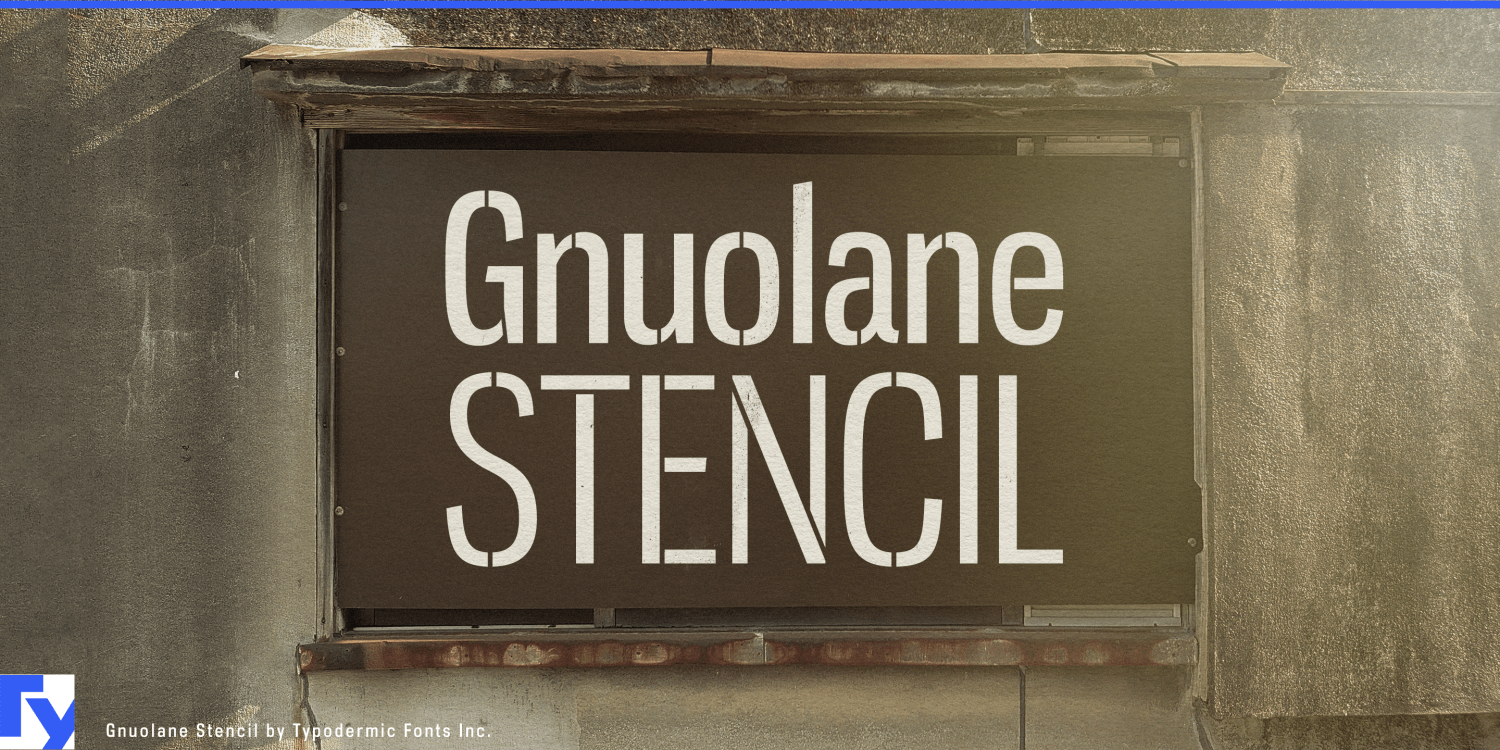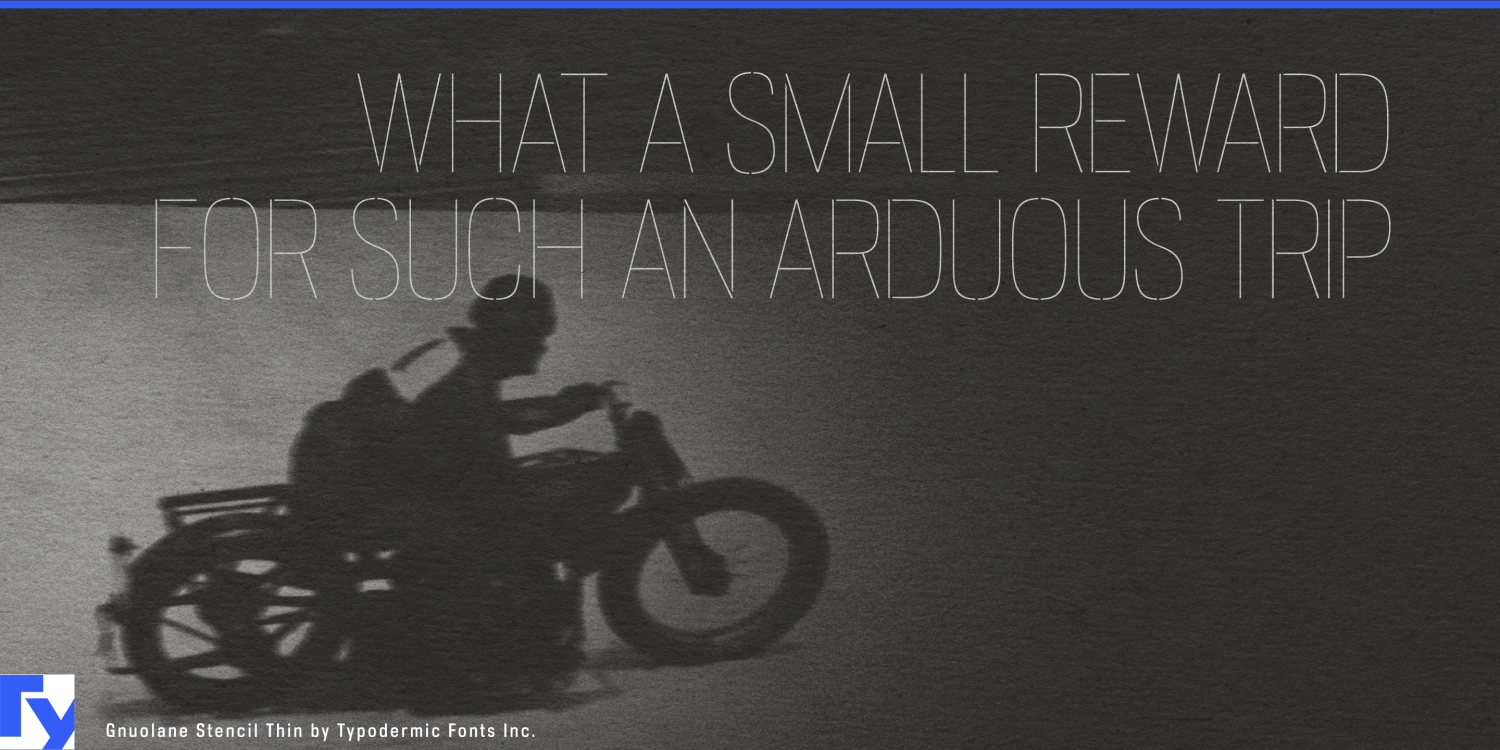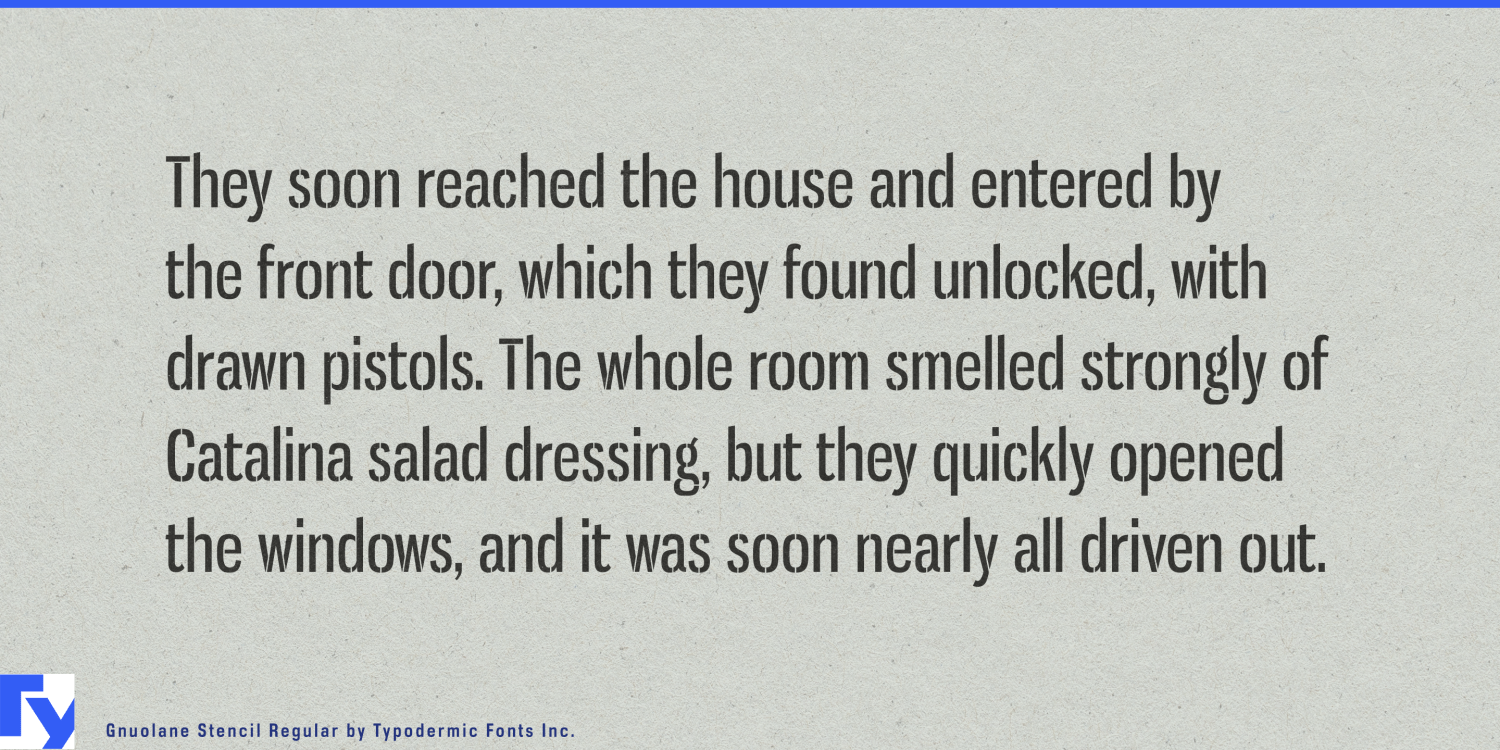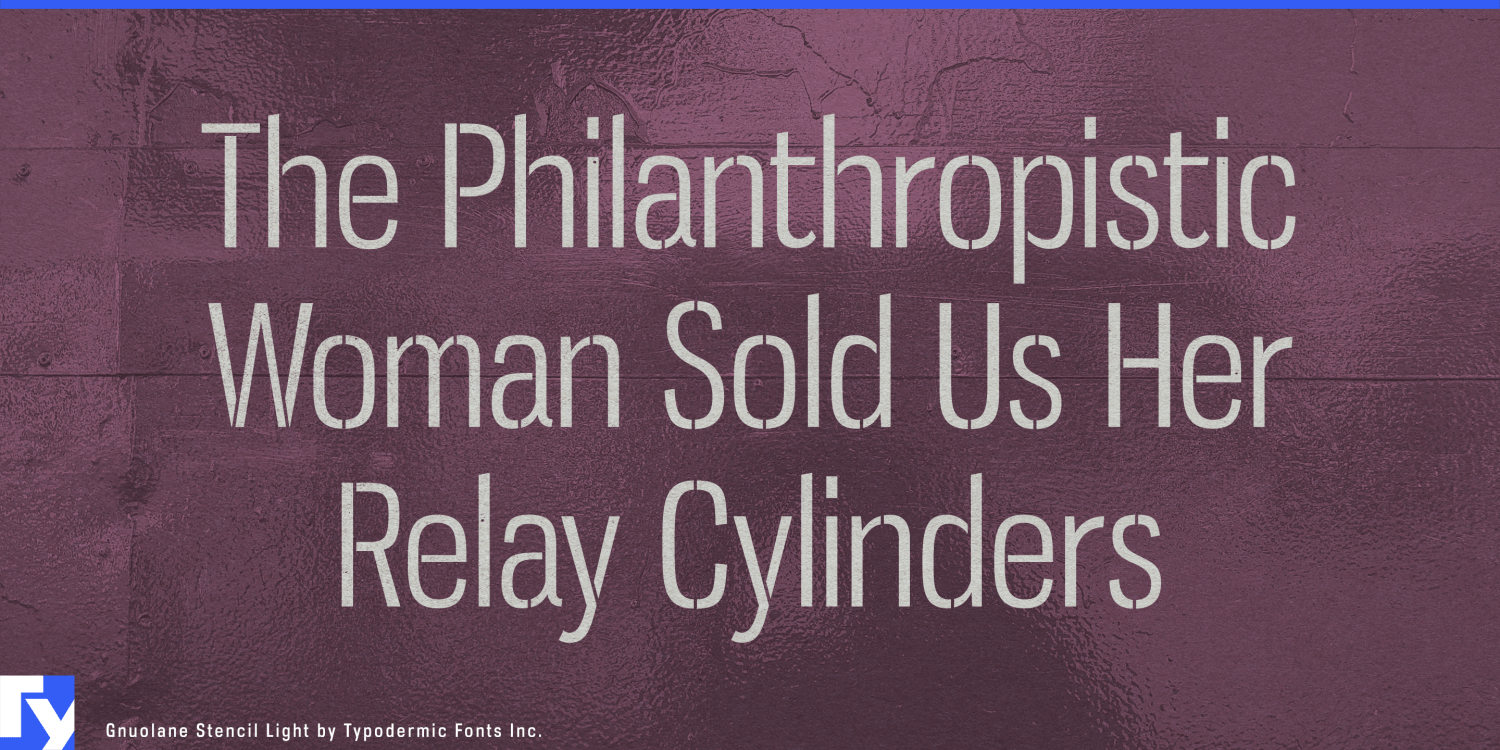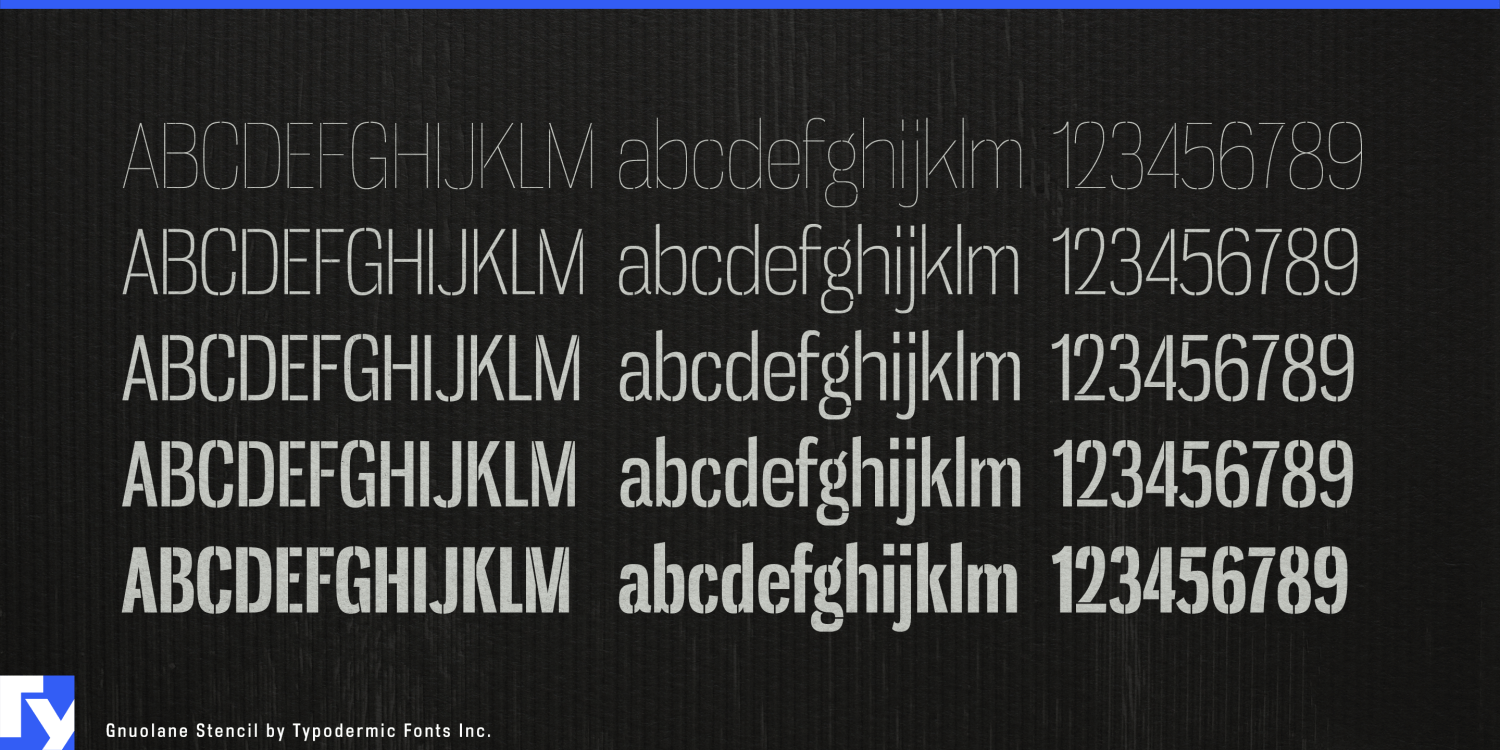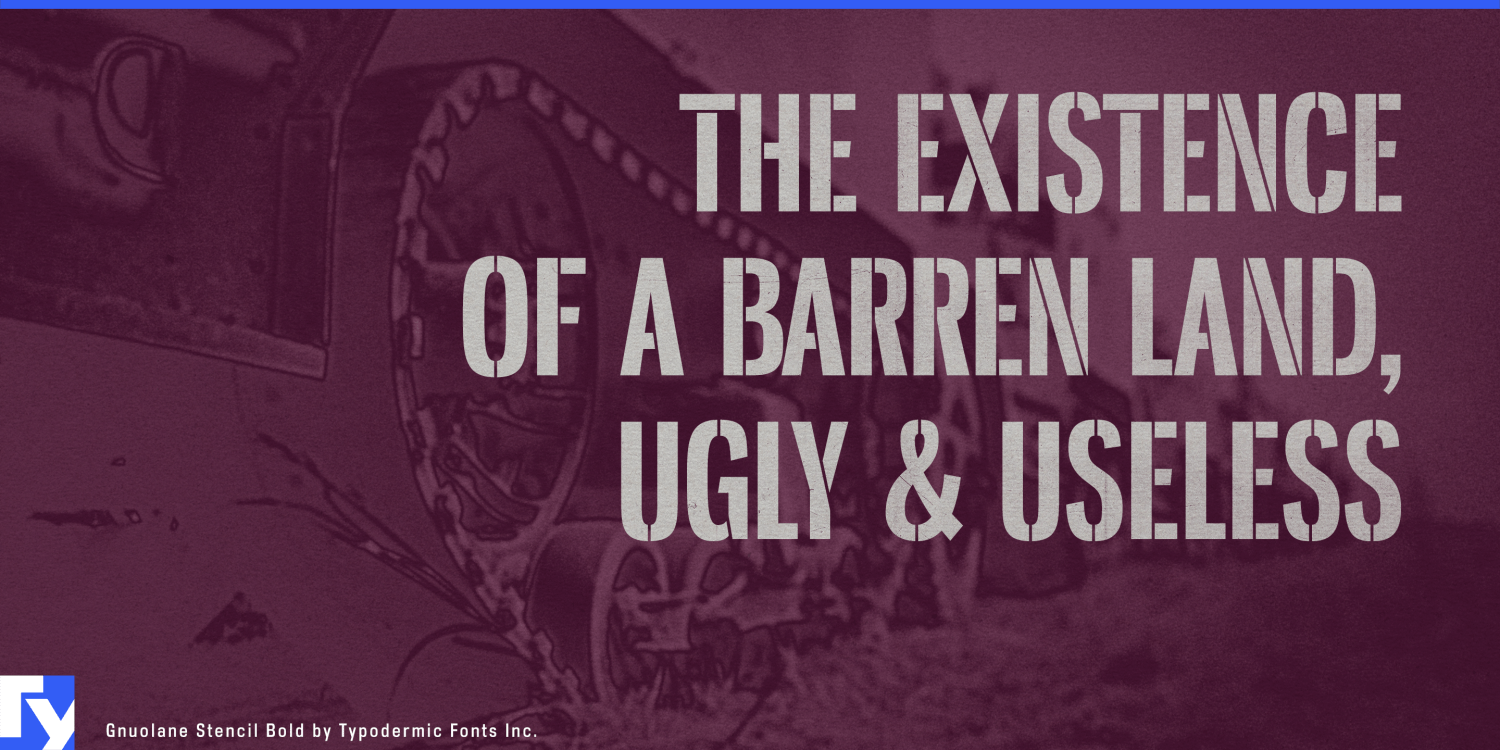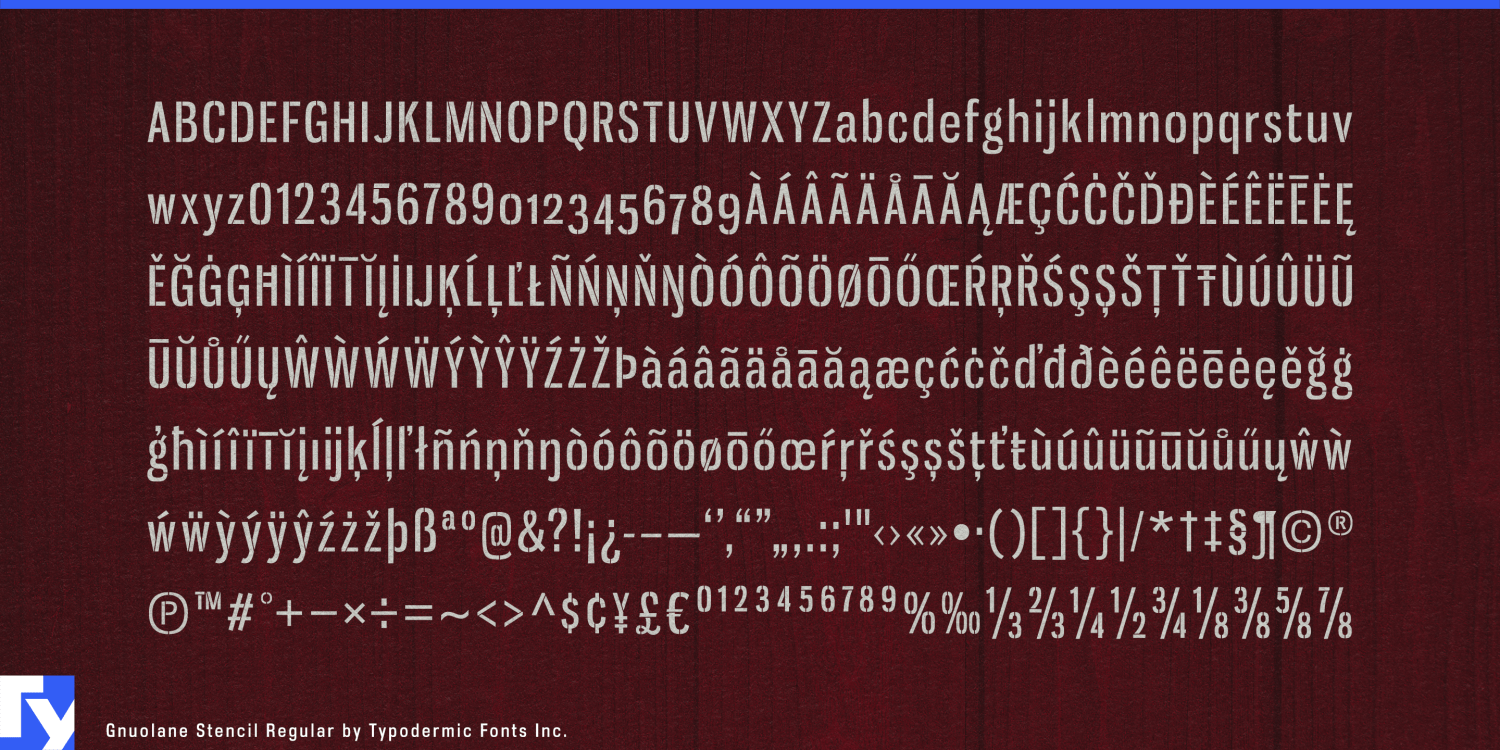
Gnuolane Stencil
Font Family by Typodermic
Most stencil fonts make the cuts the main event. Gnuolane Stencil takes a more controlled approach. Its bridges are deliberately fine, allowing the eye to register the language of stenciling without breaking the letters into heavy mechanical fragments. The result suggests marking, assembly and field equipment while preserving the clean superelliptical structure of Gnuolane underneath.
That distinction matters when a project needs the functional associations of stencil lettering without looking military, improvised or cheaply utilitarian. Five upright weights from Thin through Bold let the effect range from unusually delicate to emphatic.
Civilian aerospace and advanced flight hardware are especially well suited to that balance. Commercial drones, inspection aircraft, aerospace suppliers, satellite programs and emerging air-mobility systems need platform names, prototype identifiers, mission graphics, ground-support cases, exhibition displays and test-program campaigns. Gnuolane Stencil keeps the equipment-marking reference while giving the overall system a cleaner technical character.
Premium field and expedition equipment presents a similar problem. Hard equipment cases, specialist outdoor electronics, climbing equipment, ski and snowboard products, expedition luggage and technical storage systems benefit from lettering that looks appropriate on objects designed to travel, be stacked and get handled. Product families, model names, case graphics, decals and retail displays can borrow the visual language of operational equipment without becoming rough or pseudo-military.
Modular architecture and prefabricated building systems give the stencil construction another reason to exist. Prefab housing, modular interiors, temporary structures and architectural components are manufactured, numbered, transported and assembled as systems. Gnuolane Stencil can carry module names, showroom panels, architecture-exhibition headings and construction-tech campaigns while suggesting fabrication and assembly rather than a spray-painted crate.
Hard-shell luggage, premium travel cases and modular packing systems extend the same idea into consumer products. Motorsport campaigns, paddock graphics and transport cases can use the stencil breaks to suggest components and preparation without relying on conventional racing typography.
Gnuolane Stencil belongs to the broader Gnuolane group. The original Gnuolane keeps the superelliptical structure clean for engineered products, electrification, robotics and automation; Gnuolane Jump takes the forms toward irregular mid-century display typography. Gnuolane Stencil is the branch for projects that need the visual logic of marking, transport and assembly while keeping the lettering controlled and contemporary.